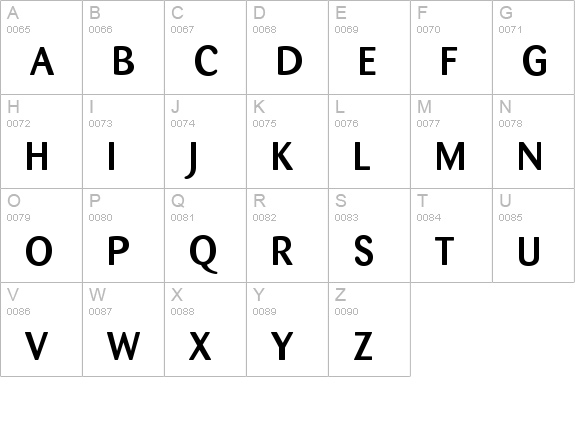
Barmeno Medium is a balanced, medium-weight variant in the Barmeno typeface family \xE2\x80\x94 well suited to sub-headlines, navigation, and balanced editorial work.
Barmeno Medium is a versatile and modern font that strikes the perfect balance between sophistication and readability. With its clean lines and balanced proportions, Barmeno Medium is ideal for a wide range of design projects, from corporate branding to editorial layouts. Its medium weight exudes a sense of stability and professionalism, making it a go-to choice for designers looking to make a strong visual impact. What's even better is that Barmeno Medium is available for free download at FontsMarket.com. This means you can easily access this high-quality font without any cost, making it a valuable addition to your font collection. Whether you're working on a print project or a digital design, Barmeno Medium's timeless appeal and versatility make it a must-have font for any designer. Download it today and elevate your designs with the timeless elegance of Barmeno Medium.